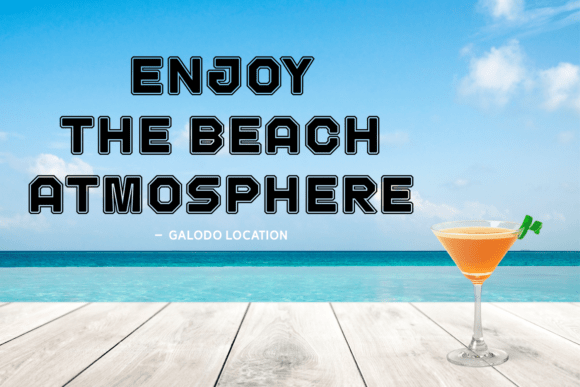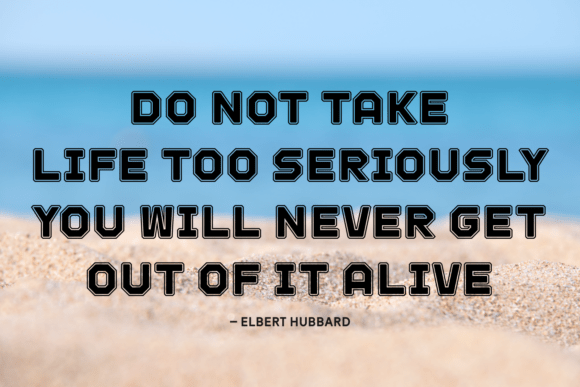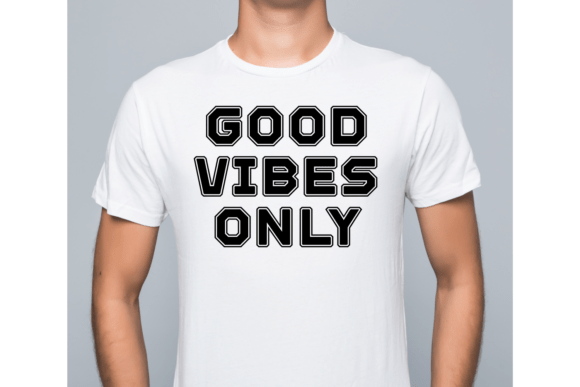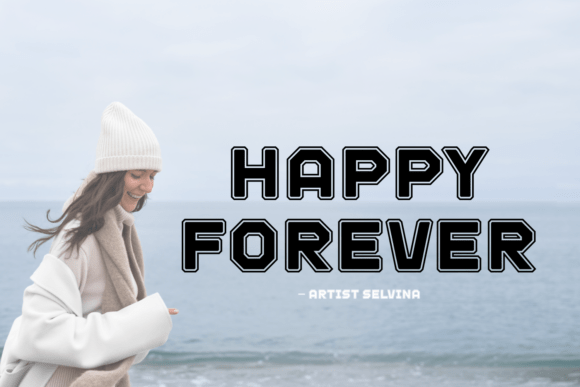
Introduction to Pure Clean Font
Remember that moment when you’re working on a creative project and you just can’t seem to find the perfect font to match your vision? You’ve scrolled through countless options, but none seem to capture the essence of your design. That’s when you stumble upon Pure Clean Font – a game-changer in the world of typography.
With its sleek and modern design, Pure Clean Font is a valuable resource for designers looking to elevate their work. Its high quality and versatility make it an ideal choice for a wide range of creative projects, from branding to editorial content. Whether you’re working on a free download or a paid project, Pure Clean Font is sure to impress with its transparent background and clean lines.
Key Features of Pure Clean Font
- High-quality typography with a transparent background, perfect for creative projects
- Features a clean and modern design, ideal for use in logos, branding materials, and other visual identity elements
- Includes a range of weights and styles, allowing for versatility and customization in your design project
Honest Review: Pure Clean Font
I recently stumbled upon the Pure Clean Font while searching for a high-quality font for a creative project, and I must say I was impressed. The font offers a clean and minimalist design that works well for various design applications.
- ✨ Clear and easy-to-read letters
- ✨ Suitable for headings and body text
- ✨ Great for digital design projects
- ⚠️ Limited character set, which may not be suitable for complex design projects
- ⚠️ Not ideal for use on transparent backgrounds due to the font’s opaque nature
Overall, I would recommend the Pure Clean Font for simple design projects or as a temporary solution for a creative project. Its clean design and free download make it a valuable design resource. However, for more complex projects or those requiring a wide range of characters, you may want to consider a different font.
Tips for Getting the Most Out of Pure Clean Font
Use the font in conjunction with other design resources, such as images and graphics, to create a cohesive and visually appealing design. Experiment with different font sizes, colors, and styles to find the perfect combination for your creative project. Use the font on a transparent background to create a clean and modern design.
The Pure Clean Font is a versatile design resource that can be used in a variety of creative projects, including business cards, brochures, posters, and presentations. Use the font to create a professional and polished design that effectively communicates your message.
Alternatives to Pure Clean Font
Helvetica Font
Helvetica is a classic, high-quality font that is ideal for a variety of creative projects, including logos, posters, and brochures. It features a clean and simple design, making it perfect for designers who want a timeless look. Unlike Pure Clean Font, Helvetica has a more traditional feel, but still offers a transparent background that is suitable for most design resources.
Open Sans is a free download font that is widely used in the design community. It offers a clean and modern look, making it perfect for websites, apps, and other digital design projects. Compared to Pure Clean Font, Open Sans has a slightly more playful feel, but still maintains a professional look. It’s a great alternative for designers who want a high-quality font without the cost.